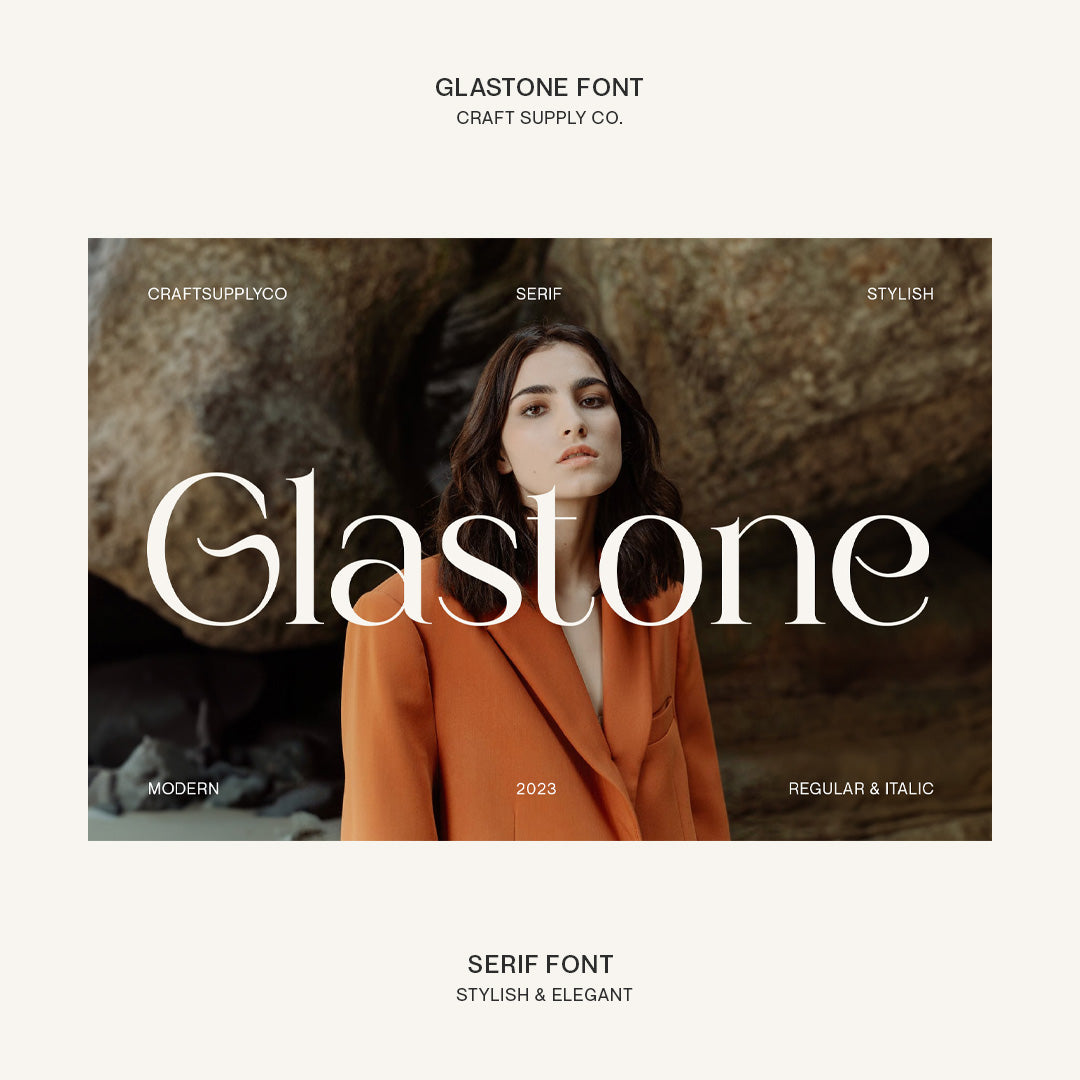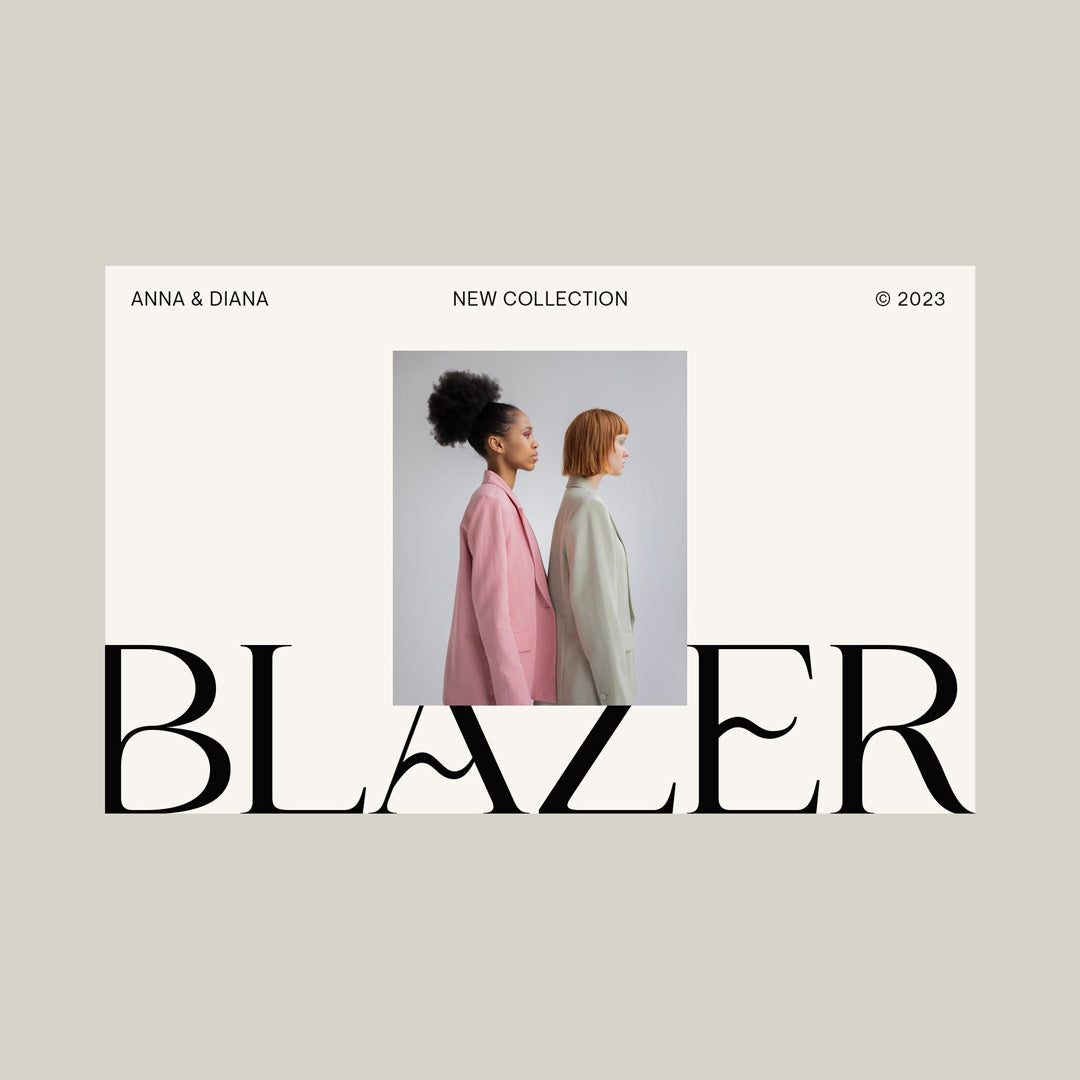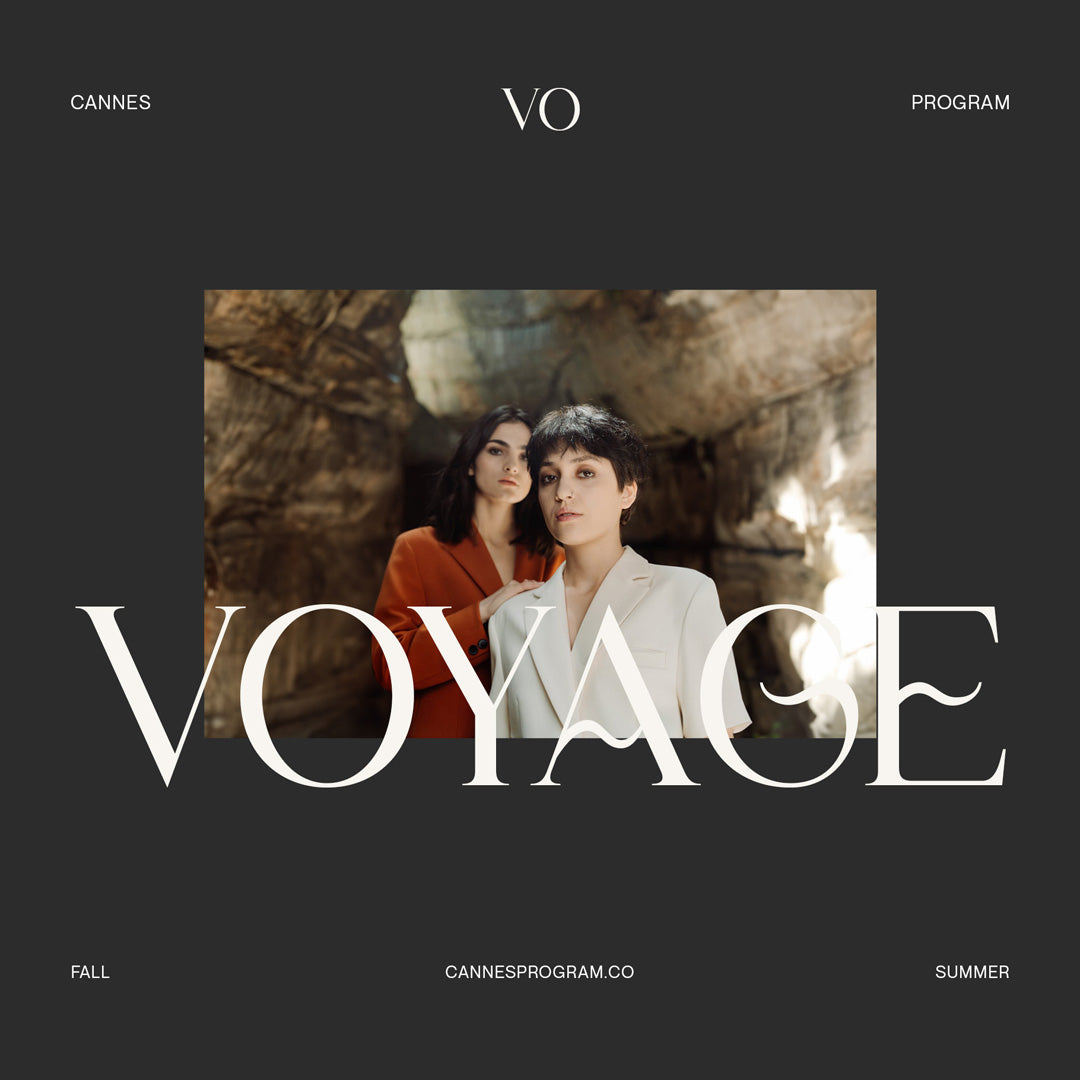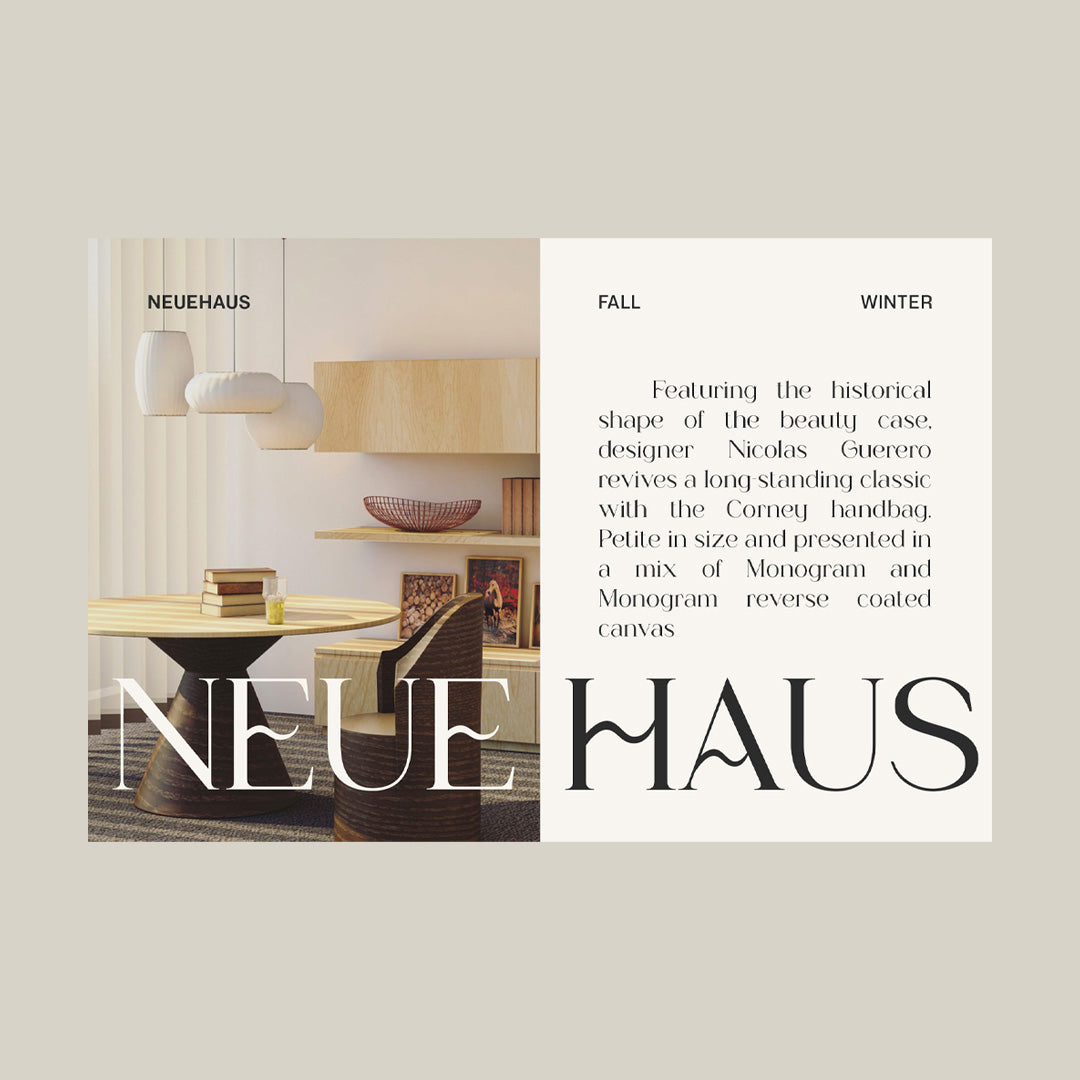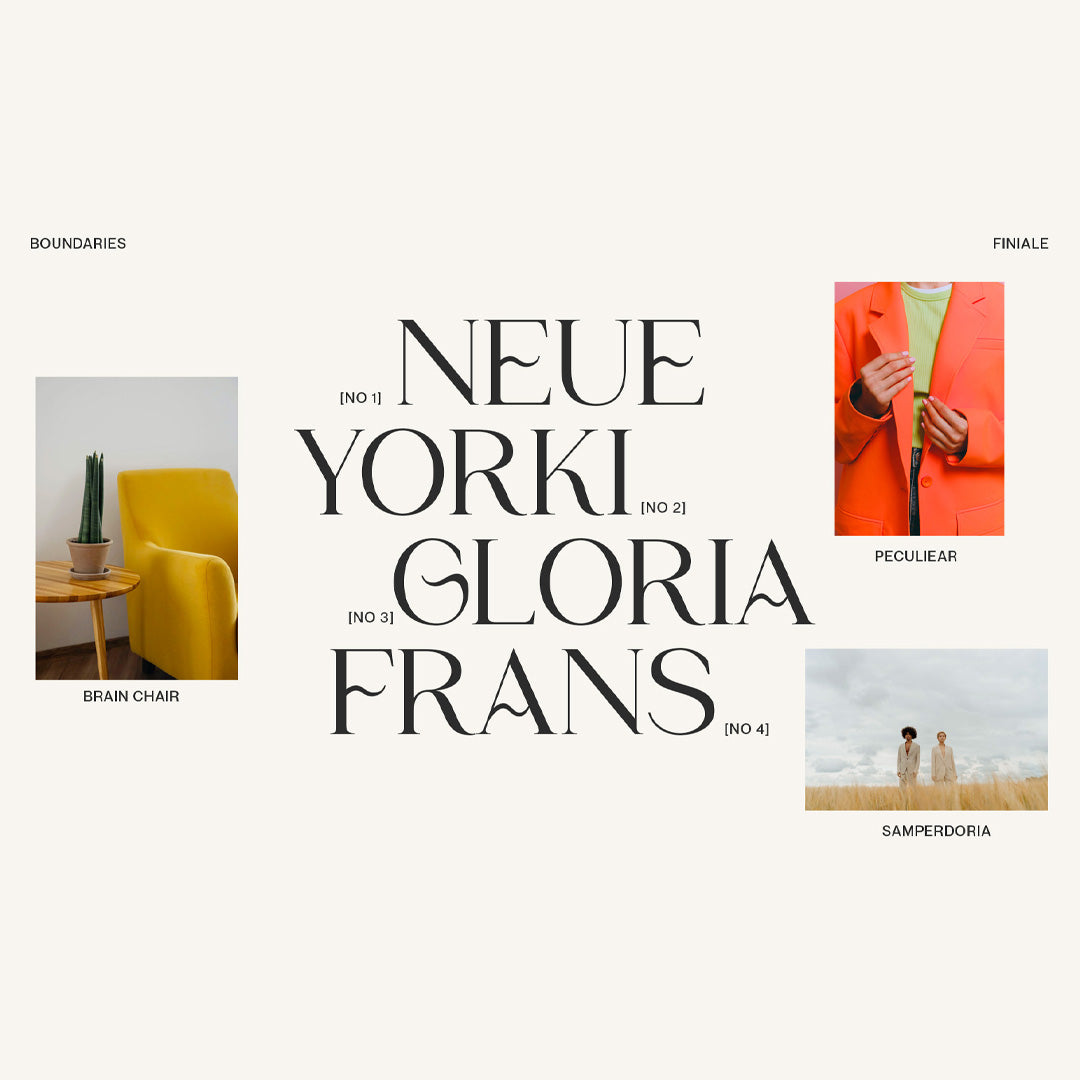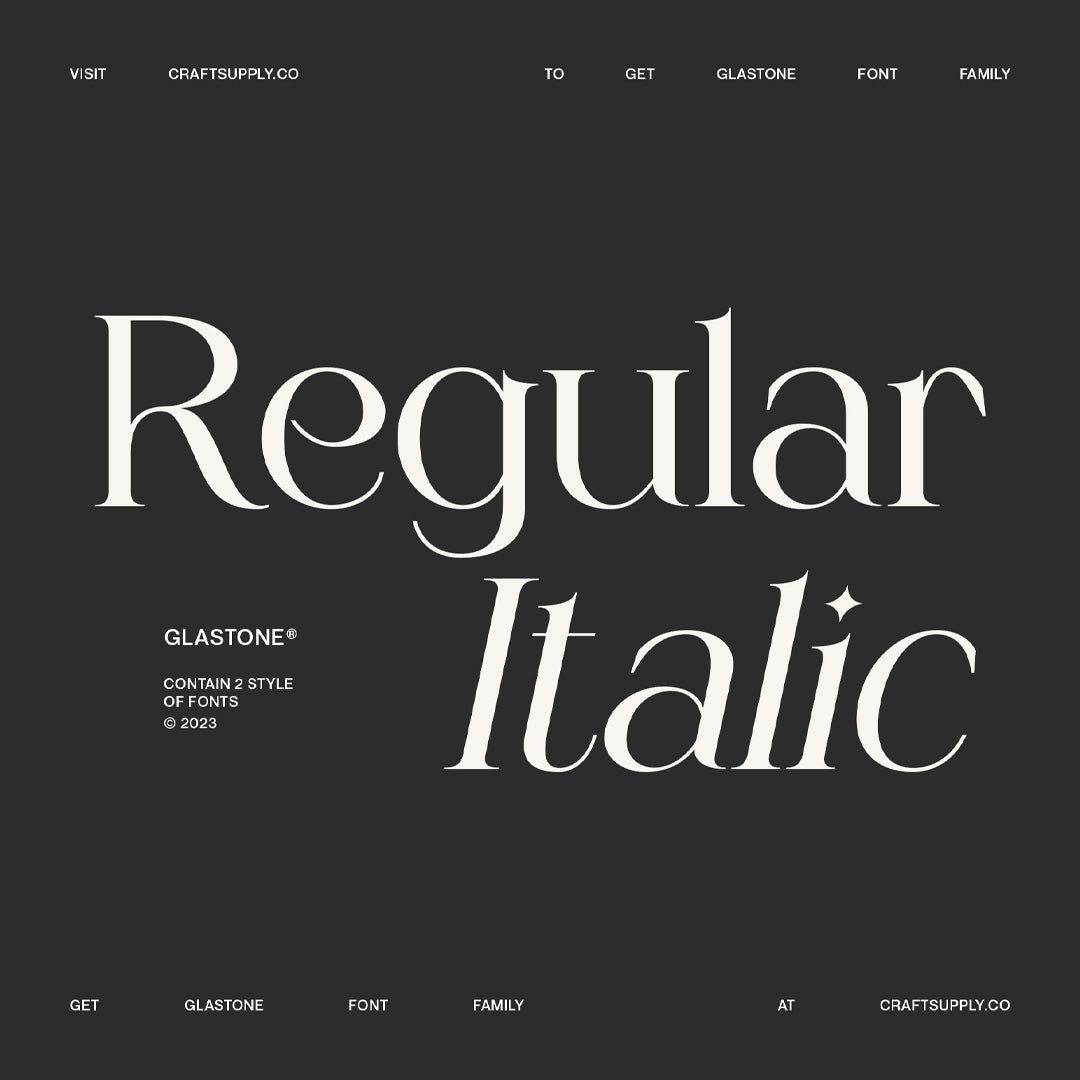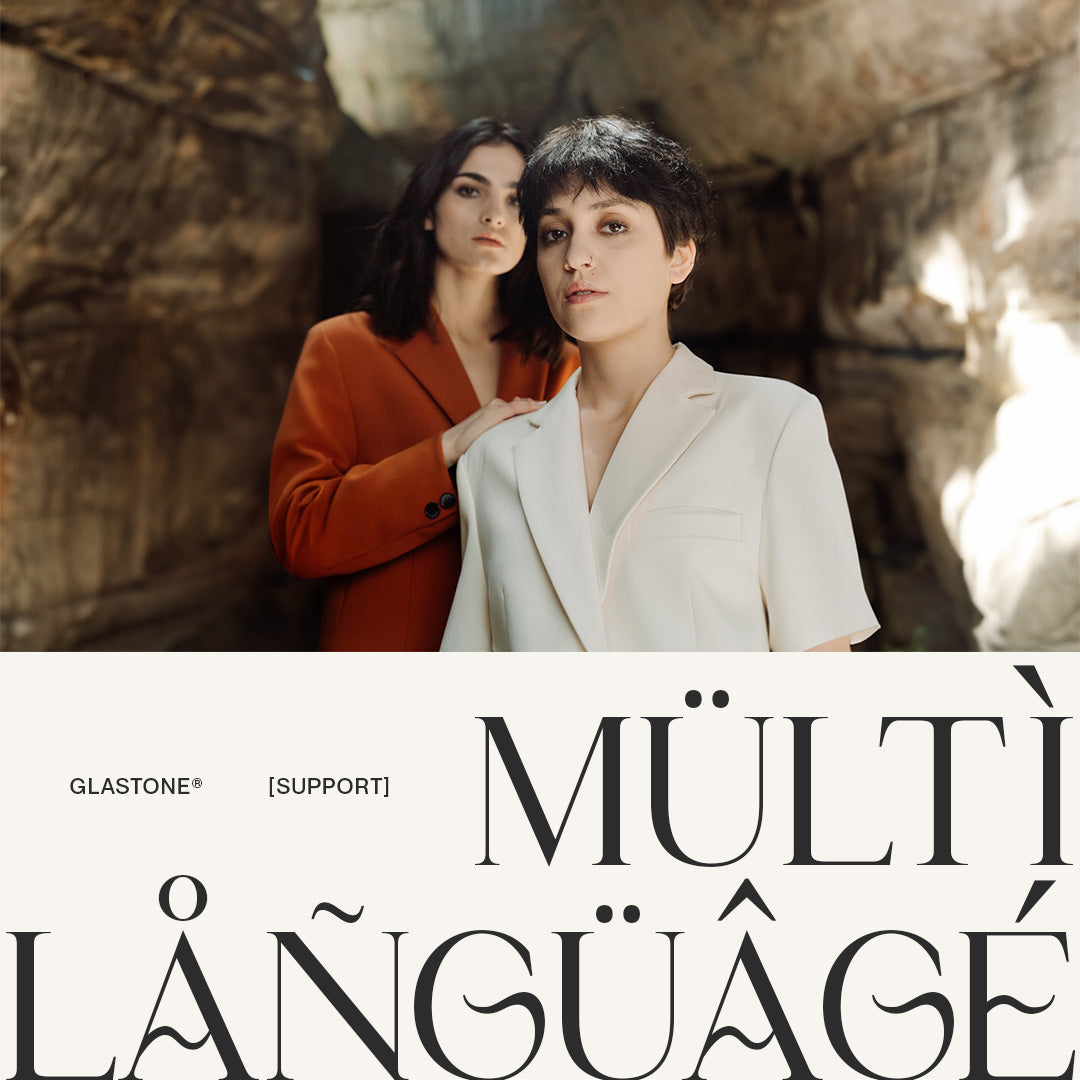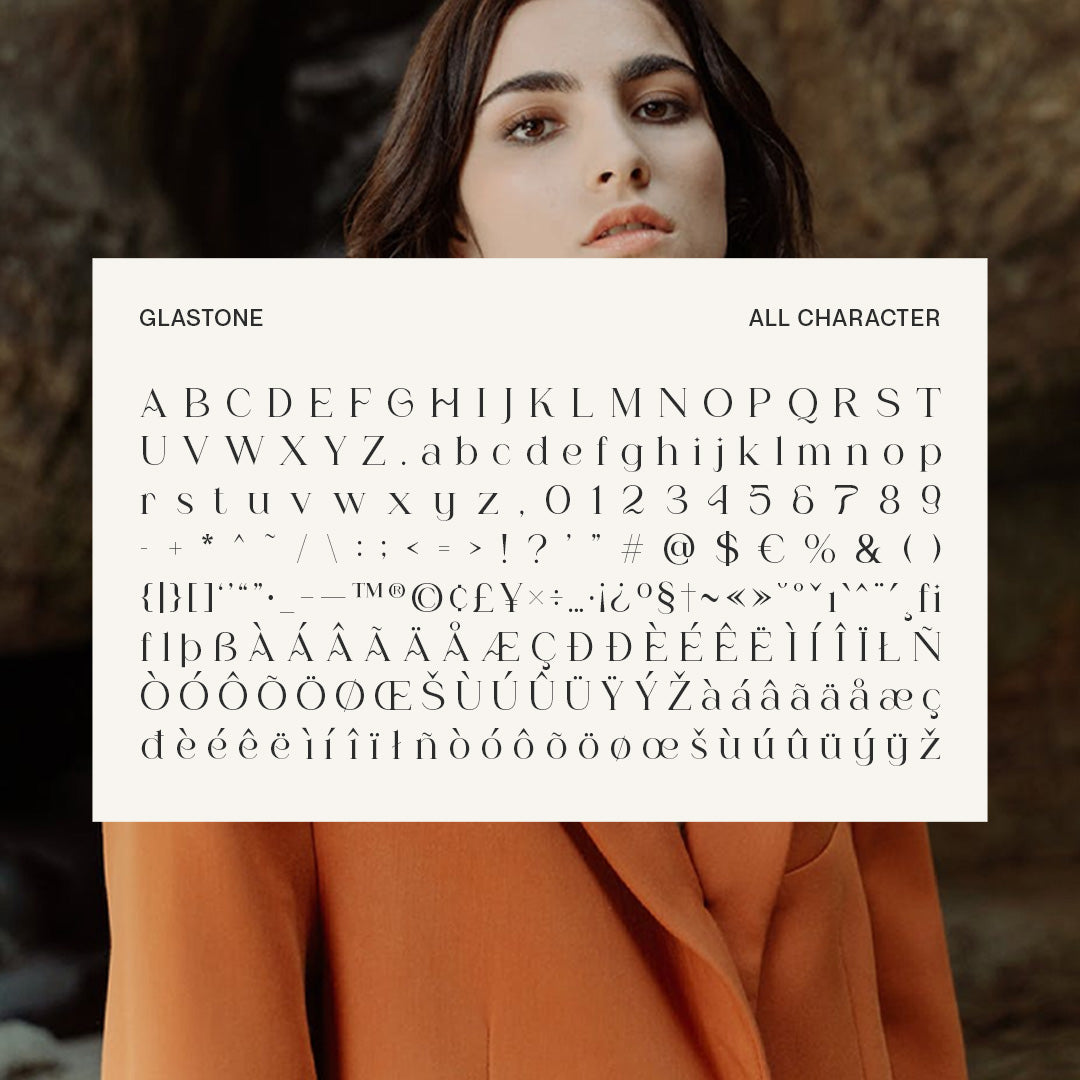
Glastone – Modern Serif Typeface
Glastone is a modern serif typeface that seamlessly blends beauty and a feminine touch, infusing a sense of class and contemporary sophistication. Its graceful lines and modern aesthetic make it the perfect choice for projects seeking a balance of elegance and modernity.
This typeface is ideal for greeting card, packaging, brand identity, poster, or any purpose to make your design project look eye catching and trendy. Feel free to play with this typeface!
Glastone is a modern serif typeface featuring graceful lines and a contemporary aesthetic, available in Regular and Italic styles. It includes uppercase and lowercase letters, numerals, punctuation, multilingual accents, and is PUA encoded for added versatility.